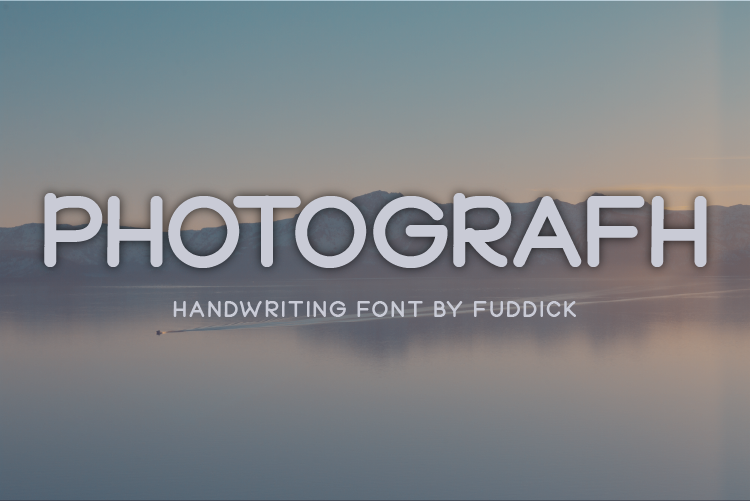
Photograph Font
Photograph Display Font, Its optimum legibility, clean, and geometric look is perfect branding, brochures, greeting cards, quotes, posters, stationary, design titles, blog headers, and much more.